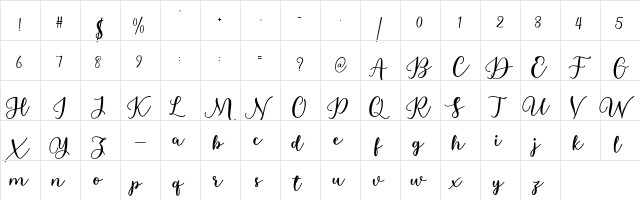
Estafet Letter Script Med Regular
| Designer | Sarwo Edi |
Design Context for Estafet Letter Script Med Typeface
Estafet Letter Script Med flows with the natural rhythm of handwritten lettering, making it ideal for designs that call for warmth and personal expression.
Font Pairing: Combine Estafet Letter Script Med with a simple geometric sans for maximum contrast — the tension between flowing curves and clean structure is a classic typographic pairing.
Pro Tip: Pair Estafet Letter Script Med with a clean sans-serif for supporting text. The contrast between fluid script and geometric structure creates an elegant typographic hierarchy.